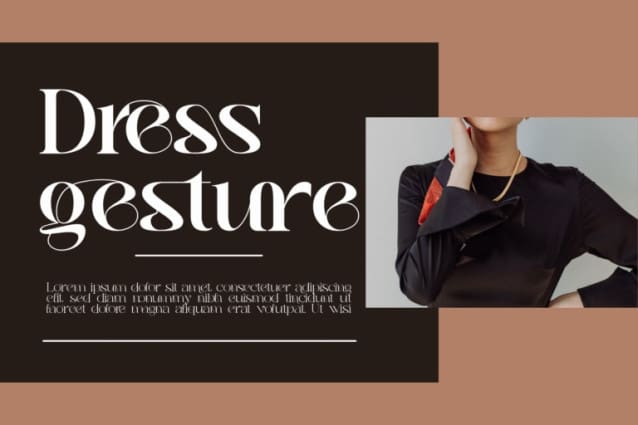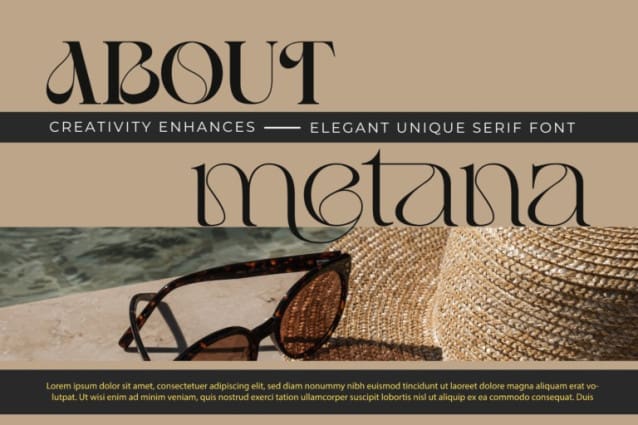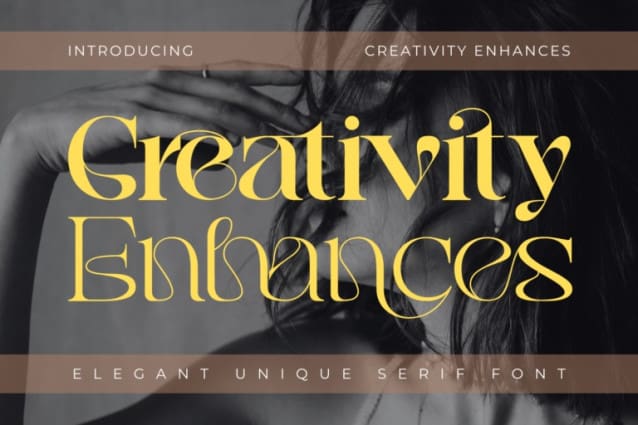
Creativity Enhances Font
Creativity Enhances Font is a modern, elegant, and classy serif typeface, it’s comes with clean lines and smooth curves that give any project an extra touch of class. This elegant typeface features a variety of ligatures, adding a touch of sophistication to any design. Perfect for creating captivating headlines, branding, and editorial pieces,.
Creativity Enhances was built with OpenType features and includes 100 ligatures, alternate, numbers, punctuation, and it also supports other languages.